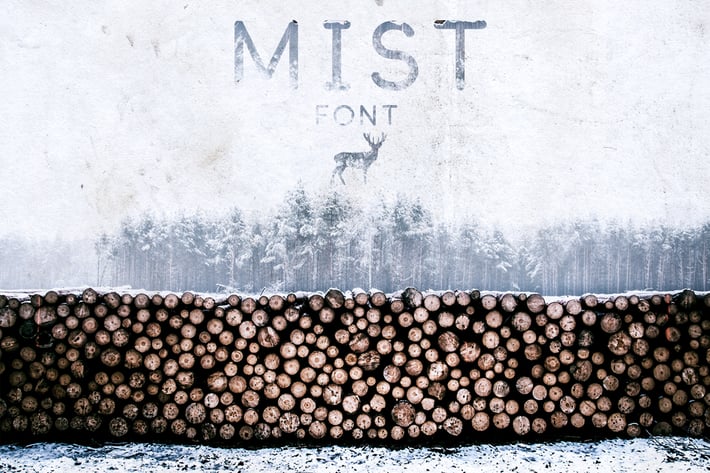
Mist Font
Simply regular font font which can help you in your arts, advertisements, branding, logos and in other stuff that you can enjoy.
Include all letters (upper and lower case), numbers, and over 40 glyphs.